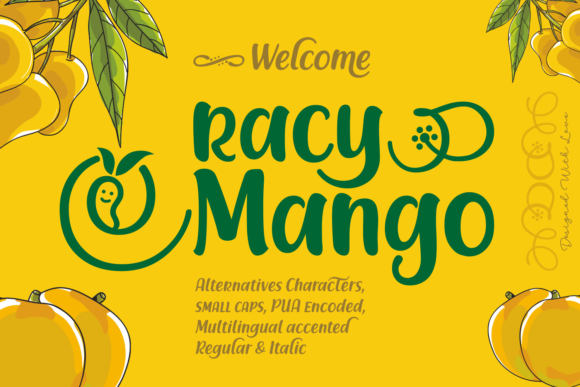
In a world saturated with digital monotony, where fonts often blend together in a sea of sameness, Racy Mango Font emerges as a refreshing burst of creativity, a font that dances with individuality and captivates with its unique charm. Its graceful script style, reminiscent of handwritten notes penned with care, evokes a sense of nostalgia and authenticity that will add a touch of whimsy to any design project.
With its fruity and fresh personality, Racy Mango Font is a breath of fresh air, inviting you to explore the realm of boundless creativity. Its sweet charm adds a sprinkle of delight to every letter, making it the perfect choice for projects that demand a touch of playfulness and warmth. Whether you're crafting invitations, designing logos, or creating social media graphics, Racy Mango Font will infuse your work with an irresistible charm that will captivate your audience.
Beyond its aesthetic appeal, Racy Mango Font is a versatile workhorse, effortlessly adapting to a wide range of design styles and themes. Its organic flow lends itself beautifully to branding projects, where it can create a distinct and memorable identity that sets your brand apart from the competition. Its playful nature also shines in personal projects, such as scrapbooking, journaling, and creating personalized gifts, adding a touch of heartfelt charm to every creation.
But what truly sets Racy Mango Font apart is its ability to evoke emotions and create a lasting impression. Its carefully crafted characters dance across the page, carrying with them a sense of joy, optimism, and a hint of nostalgia. It's a font that speaks to the heart, inviting viewers to connect with the message it conveys. Whether you're designing a website, a poster, or a greeting card, Racy Mango Font will add a layer of emotional resonance that will leave a lasting impact.